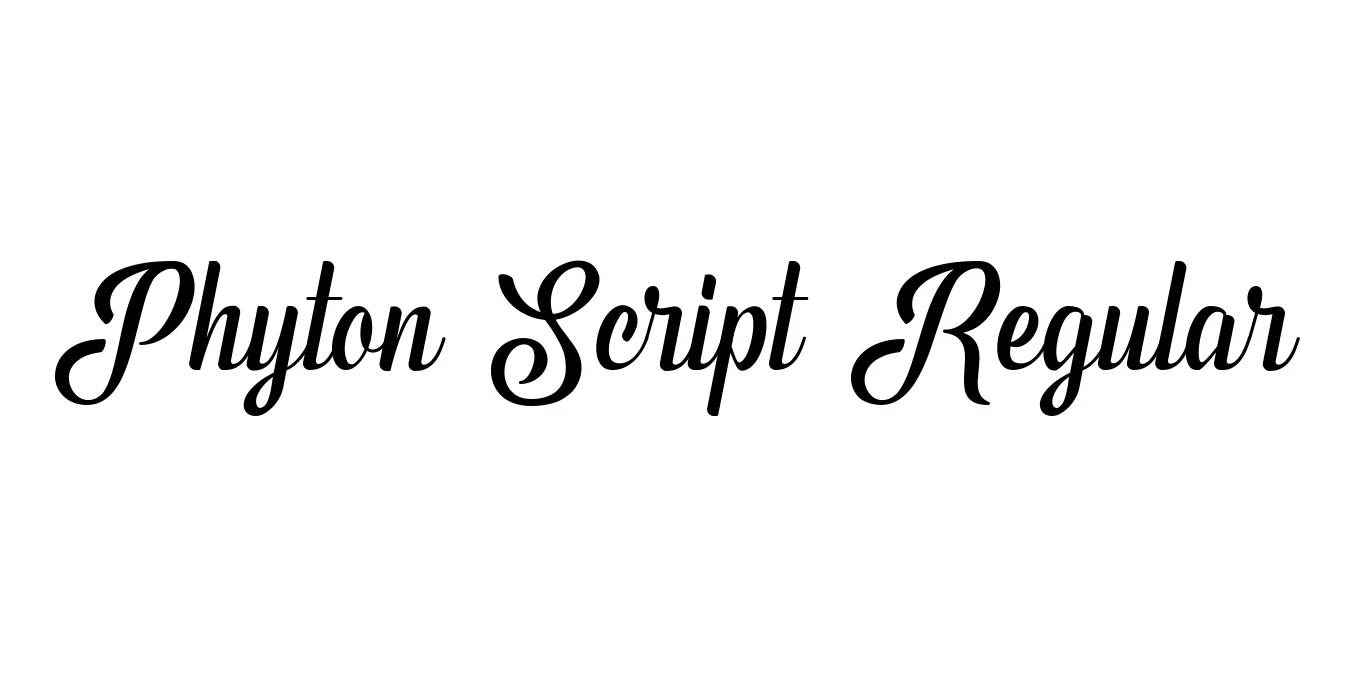
Phyton Script Regular
Phyton Script Regular is a bold, expressive brush typeface created by the renowned Swedish type designer Mans Greback. Released as part of a larger collection of script fonts, this typeface captures the raw energy of hand-painted lettering, featuring thick, flowing strokes and a distinctive organic texture. Its high-contrast lines and rhythmic ligatures make it a standout choice for designers looking to convey personality and movement in their typographic compositions.
The font bridges the gap between traditional calligraphy and modern street art, making it versatile enough for diverse creative industries. Often utilized in the fashion and music industries, Phyton Script has become a popular tool for high-impact visual communication. It remains a staple for projects requiring a handcrafted, authentic feel while maintaining the professional polish needed for large-scale commercial printing and digital displays.
Phyton Script Regular Best Uses
Excellent for creating bold, memorable logos and strong brand identities.
Perfect for t-shirt graphics, urban clothing lines, and merchandise design.
Ideal for high-impact social media headers, posters, and promotional banners.